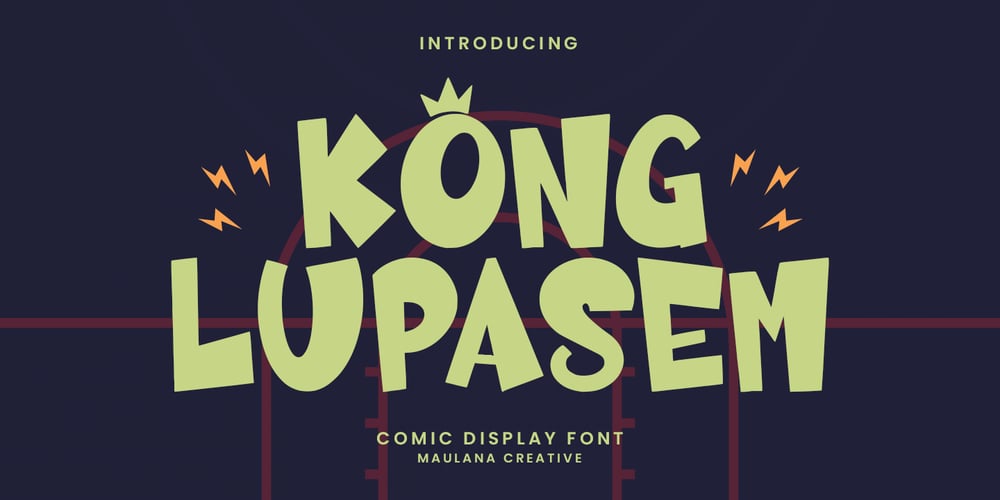
Kong Lupasem Font Family was designed by Gilang Maulana and published by Maulana Creative. Kong Lupasem contains 1 styles and family package options. Kong Lupasem comic display font. Heavy stroke, fun character with a bit of ligatures. To give you an extra creative work. Kong Lupasem fun display font support multilingual more than 100+ language. This font is good for logo design, Social media, Movie Titles, Books Titles, a short text even a long text letter and good for your secondary text font with script or serif. Make a stunning work with Kong Lupasem fun display font. Cheers, Maulana Creative